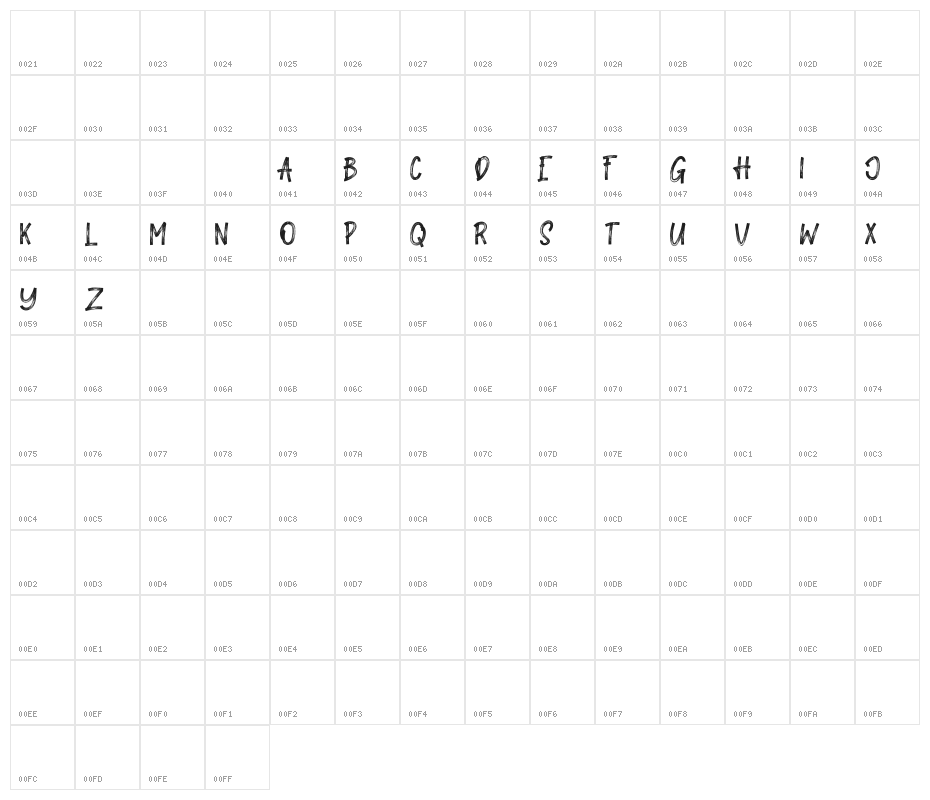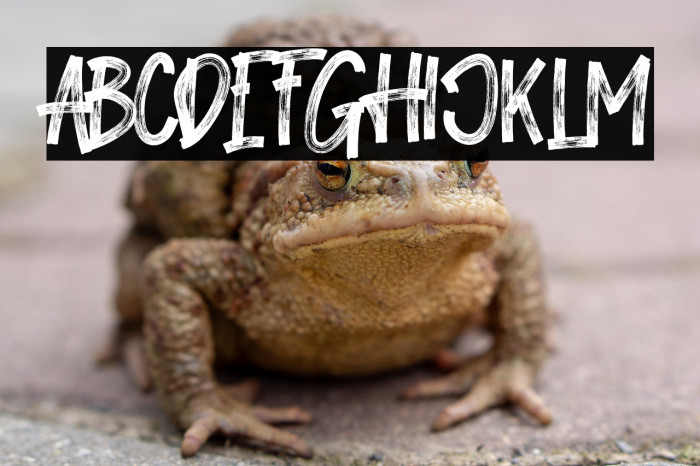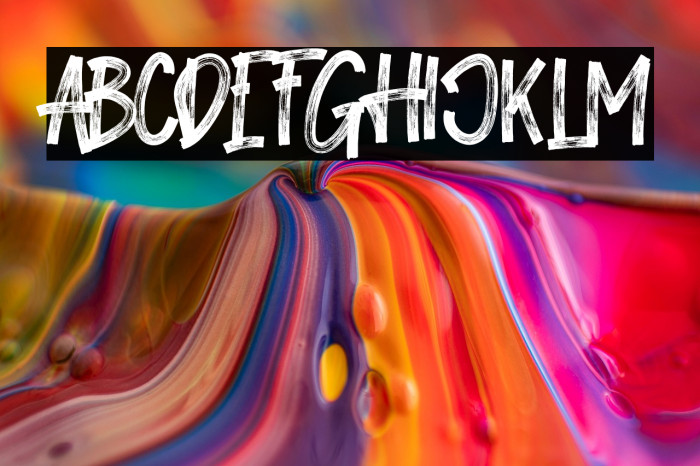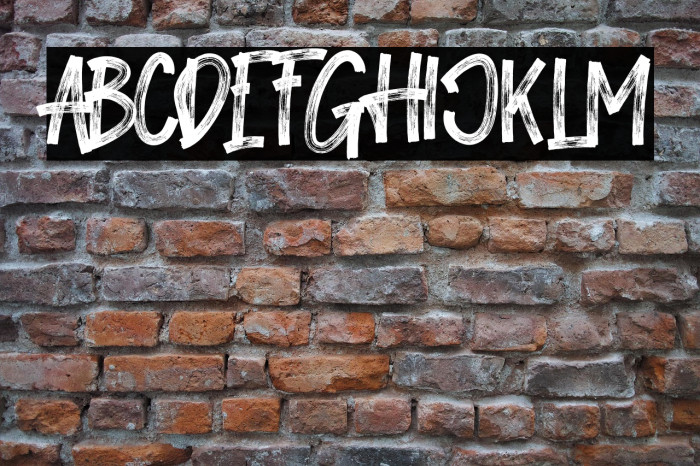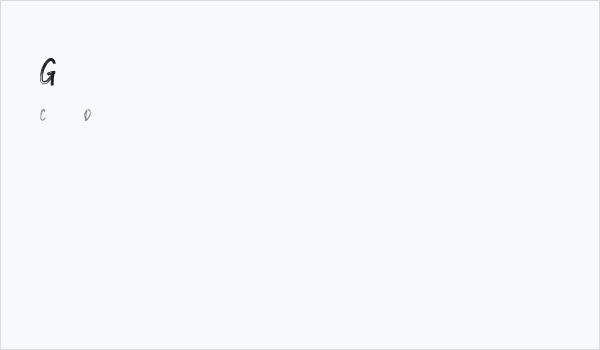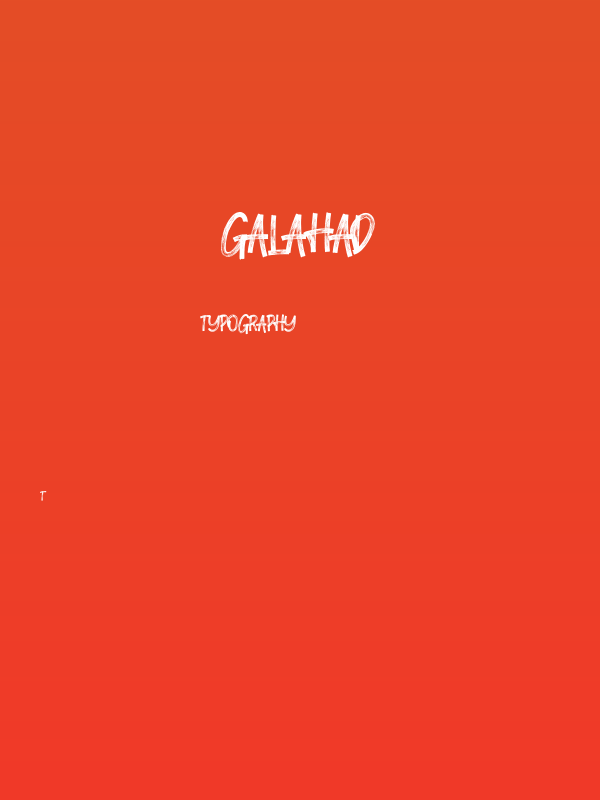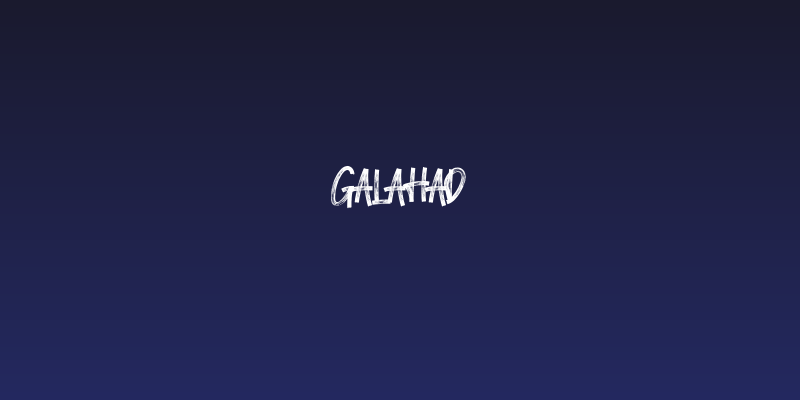
Galahad Font
Galahad Description
This font features a bold, hand-drawn style with a playful and energetic appearance. The letters are characterized by uneven strokes and a slightly rough texture, giving it a dynamic and informal look. The uppercase letters are prominent and slightly condensed, while the lowercase letters maintain a consistent style. The overall design suggests a sense of movement and creativity, making it suitable for projects that require a lively and informal touch. The font's unique character shapes and irregularities add to its charm, making it stand out in various design contexts.